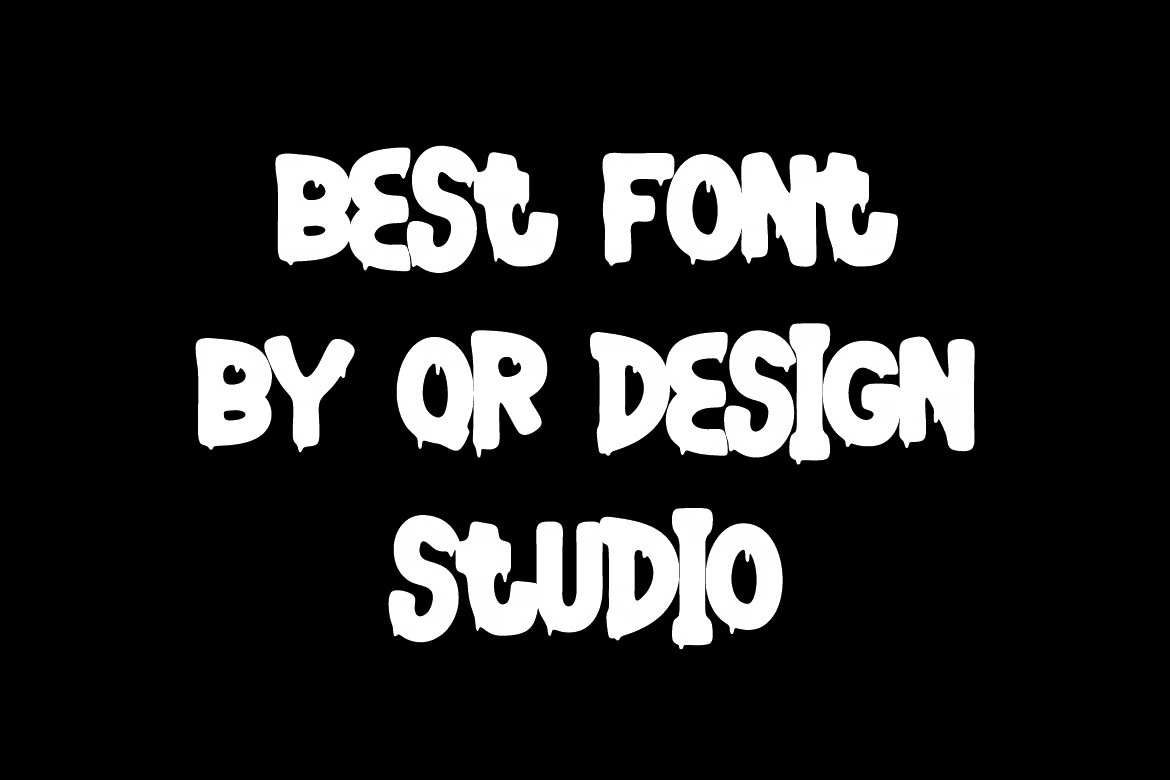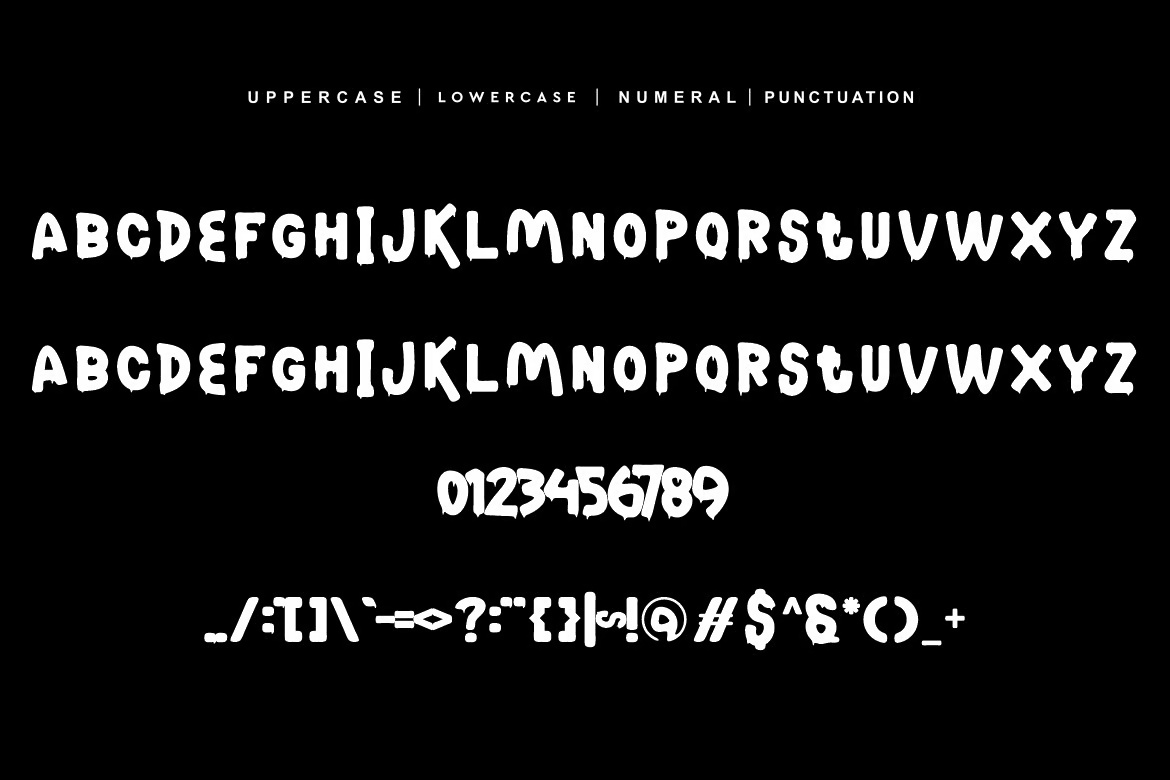
Grafkog Font
Grafkog is a bold and authentic display font designed to bring energy and attitude to your projects. With its edgy and dynamic style, this font is perfect for branding applications such as posters, logos, sports-themed designs, and more.
Its strong presence and urban appeal make it stand out in a wide range of contexts, from streetwear branding to extreme sports graphics. Whether you’re aiming for a raw, graffiti-inspired look or a modern, high-impact design, Grafkog delivers the perfect balance of boldness and authenticity.
Grafkog – Splash & Urban Skate Font